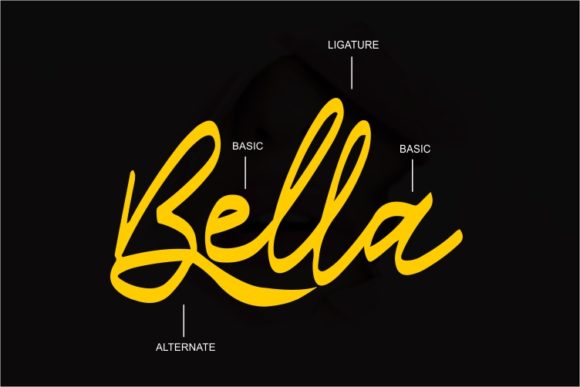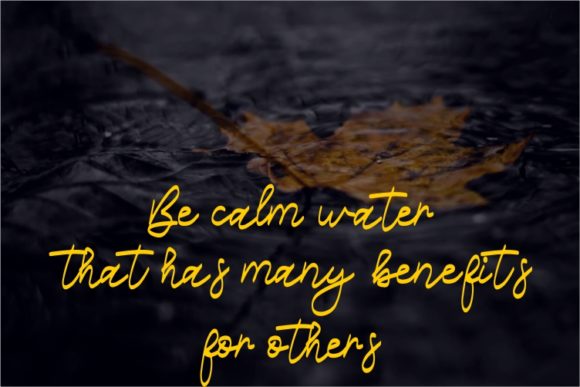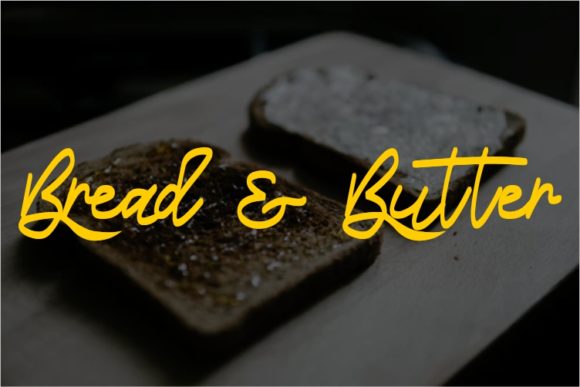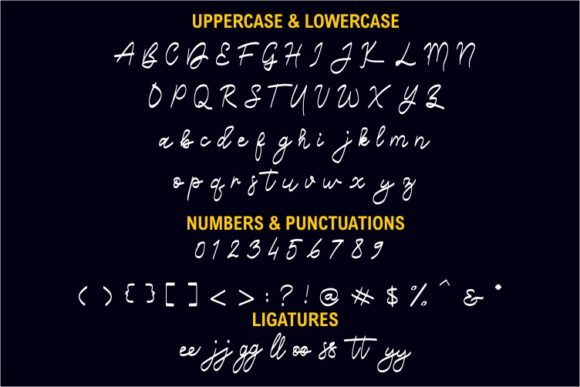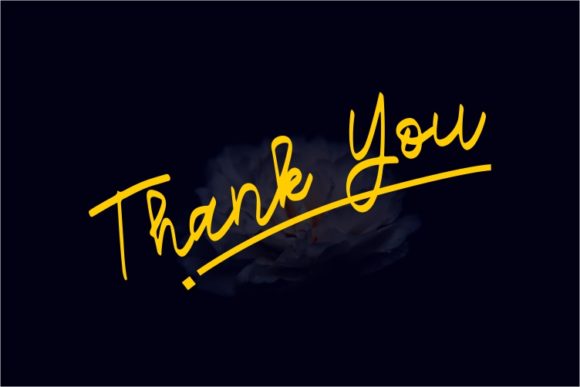
The Belliza Font: A Modern Handwritten Favorite
I’ll never forget the design project that led me to discover the Belliza font. I was working on a branding project for a new coffee shop, and I was struggling to find the perfect font to capture their casual, yet charming vibe. That’s when I stumbled upon Belliza, a modern handwritten font that quickly became my go-to. In this article, I’ll share my experience with Belliza, its features, and how to make the most of it in your designs.
An Honest Review of Belliza
- ✨ Casual charm: Belliza has a wonderfully down-to-earth feel that makes it perfect for designs that need a personal touch.
- ✅ Readability: This font is incredibly readable, even at small sizes, making it ideal for body text or captions.
- ✅ Versatility: Belliza looks outstanding in any context, whether it’s being used on busy backgrounds or as a standalone headline.
While Belliza is an amazing font, there are a few things to keep in mind:
- ⚠️ Limited use of uppercase letters: Belliza’s uppercase letters are a bit more ornate than its lowercase letters, so use them sparingly to avoid overwhelming the design.
- 🤔 Not ideal for very formal designs: Belliza’s casual charm might not be the best fit for very formal or professional designs, such as corporate branding or financial reports.
- Experiment with OpenType features, such as glyphs and stylistic alternates, to add some personality to your text.
- Take advantage of OpenType features, such as ligatures and swashes, to add some flair to your text.
The Backstory of Belliza
Belliza was designed with the intention of creating a modern handwritten font that’s both casual and charming. The designer aimed to craft a font that would be perfect for designs that need a personal touch, such as branding, packaging, and advertising. With its unique blend of elegance and playfulness, Belliza has quickly become a favorite among designers and crafters.
Q: What is Belliza font?
Belliza is a modern handwritten font, carefully handcrafted to become a true favorite. Its casual charm makes it appear wonderfully down-to-earth, readable and, ultimately, incredibly versatile.
Q: Is Belliza suitable for body text?
Yes, Belliza is highly readable, even at small sizes, making it suitable for body text or captions.
Q: Does Belliza have OpenType features?
Yes, Belliza has a range of OpenType features, including glyphs, stylistic alternates, and ligatures, which can be used to add some personality to your text.